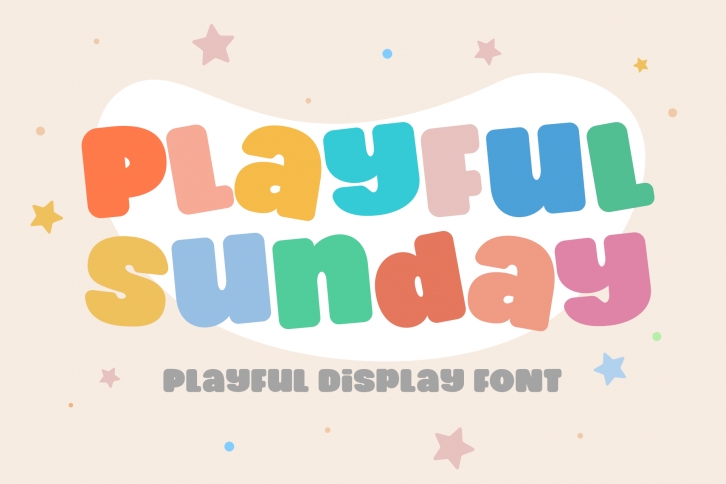
Playful Sunday is a thick lettered display font with fun and playful looks. This type of font is perfectly made to be applied especially in cartoon or children themes which need a standout vibe. Your options are limitless.